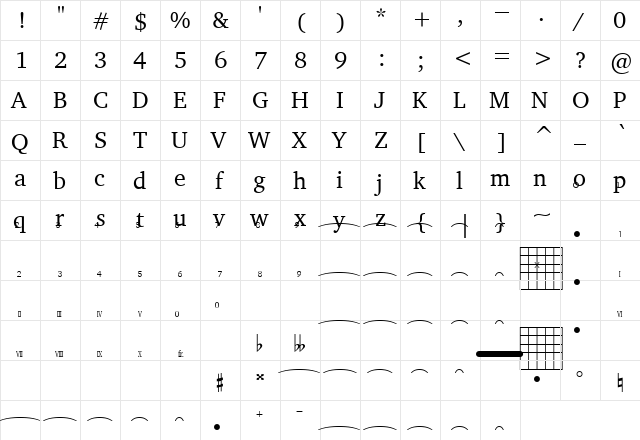
FretQwik Regular
| Designer | Robert Allgeyer (Santa Cruz, CA USA) |
Design Context for FretQwik Typeface
FretQwik takes a measured approach to typography — its balanced proportions and neutral character make it a reliable workhorse for both digital and print work.